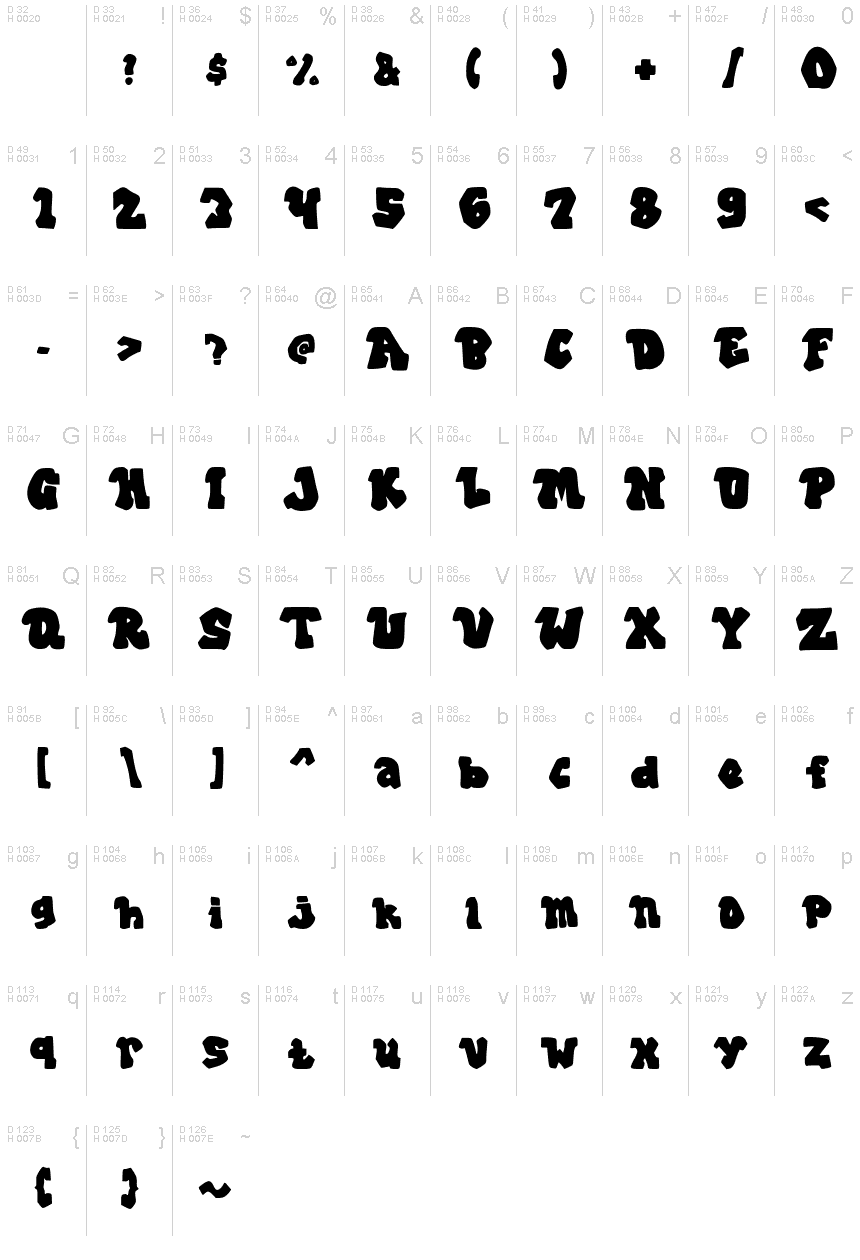
Geroside
Unleash your creative spirit with Geroside, a bold display font crafted by the talented Muhammad Yafinuha. Boasting an extra-bold weight, this typeface merges the playful charm of cartoon aesthetics with the edgy flair of graffiti art. Its distinctive character makes it a standout choice for projects that demand attention.
Geroside is not just a font; it's an invitation to innovate within the realms of logo design, business branding, and artisanal crafts. Its versatility shines across mediums, inviting designers and creatives to infuse their work with its unique vibe. Whether you're looking to captivate with catchy headlines or add personality to your graphics, Geroside promises to deliver impact and style in every stroke.